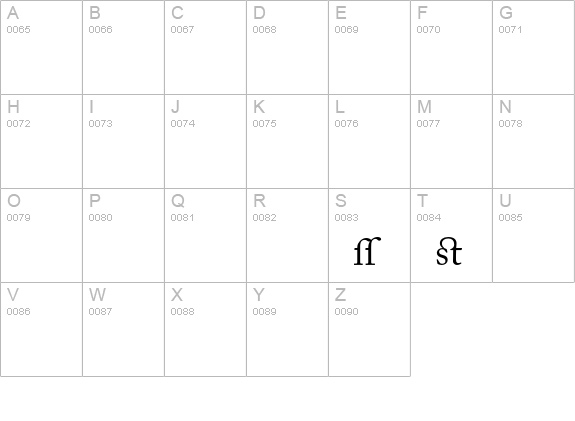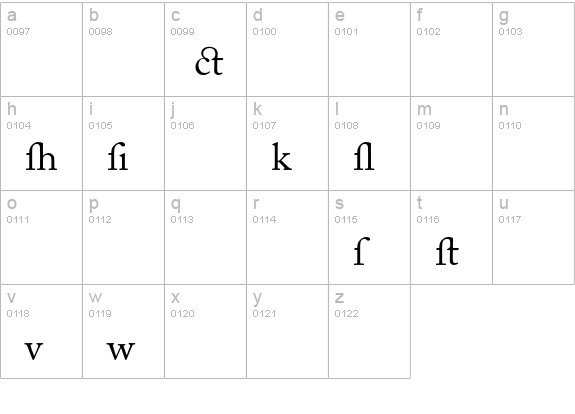
Adobe Caslon Regular Alternate Font Details
Adobe Caslon Regular Alternate is the standard, neutral variant in the Adobe typeface family \xE2\x80\x94 well suited to general body text, paragraphs, and standard typographic work.
Adobe Caslon Regular Alternate font is a classic and elegant typeface that exudes sophistication and timelessness. Its graceful serifs and balanced proportions make it a versatile choice for a wide range of design projects, from traditional print materials to modern digital applications. The alternate version offers a unique twist on the original design, adding a touch of individuality and flair. What makes Adobe Caslon Regular Alternate font even more appealing is that it is available for free download at FontsMarket.com. This means that you can easily access and use this beautiful typeface in your projects without any cost involved. Whether you're working on a professional branding project or a personal creative endeavor, Adobe Caslon Regular Alternate font is sure to elevate your designs with its refined aesthetic and impeccable craftsmanship.